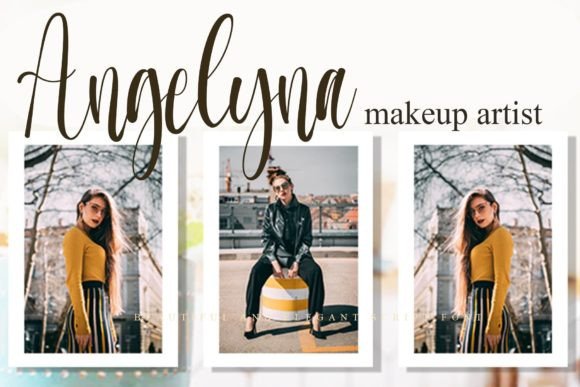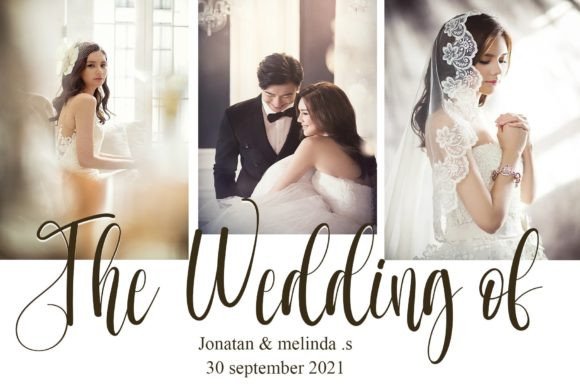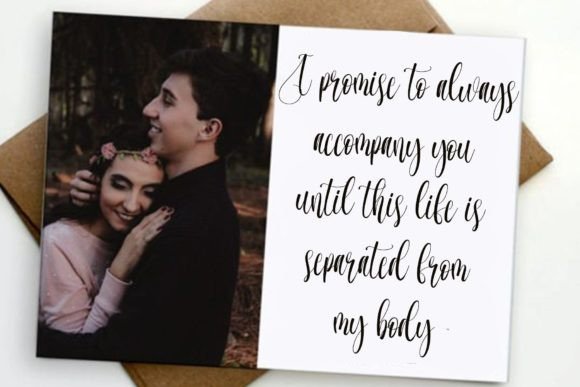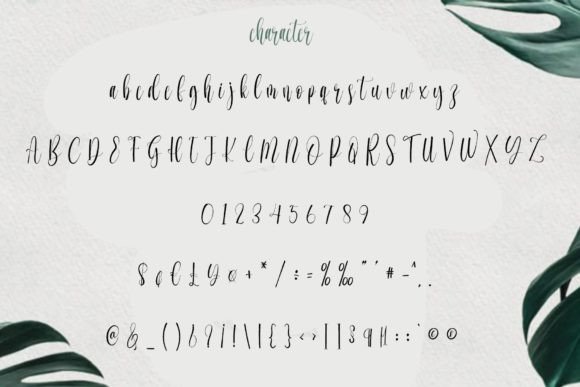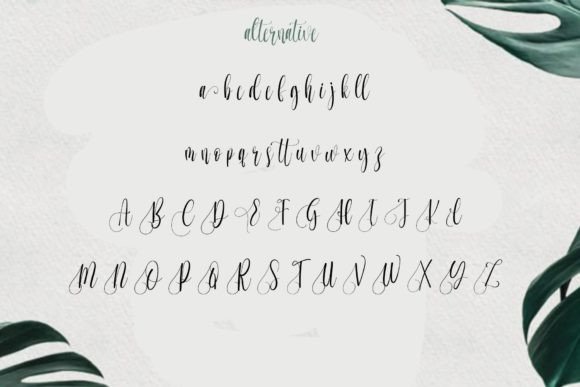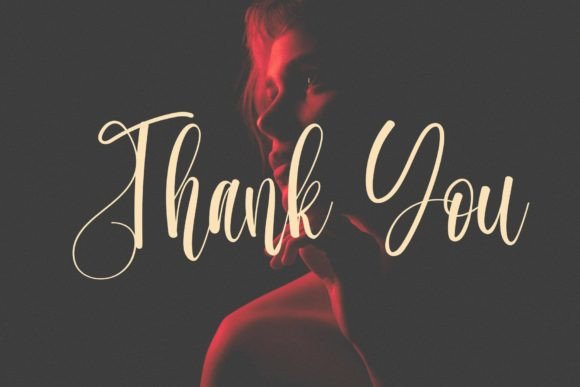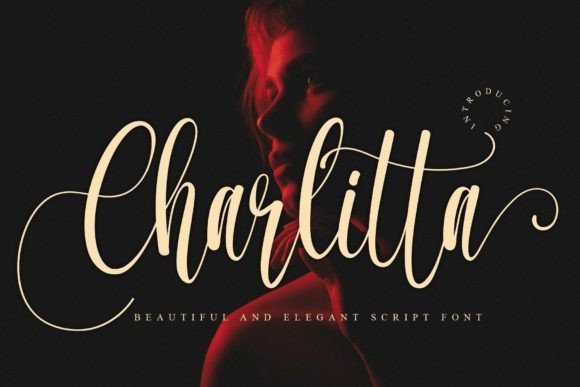
Introducing Charlitta Font: Elevate Your Design with Elegant Handwritten Style
In the world of design, fonts play a crucial role in conveying messages, expressing emotions, and creating a lasting impression. If you’re a designer, craftsperson, or simply someone who appreciates beautiful typography, you’re in luck! Meet Charlitta Font, a superb handwritten font that will make your work stand out through its elegant and curvy lines.
What Makes Charlitta Font Special?
Charlitta Font is perfect for a wide range of design projects, including product packaging, branding projects, magazine covers, social media graphics, wedding invitations, and more. Its elegant and curvy lines add a touch of sophistication and whimsy, making it ideal for designers who want to create unique and eye-catching designs.
One of the standout features of Charlitta Font is its PUA (Private Use Area) encoding. This means that you can access all of the amazing glyphs and ligatures with ease, giving you greater flexibility and creative control over your designs. With Charlitta Font, you can effortlessly add flourishes, swashes, and other decorative elements to make your text stand out.
Endless Design Possibilities with Charlitta Font
Charlitta Font is incredibly versatile, making it suitable for a wide range of design applications. Here are just a few ideas to get you started:
- Product Packaging: Add a touch of elegance to your product packaging with Charlitta Font. Use it to create eye-catching labels, tags, or even custom packaging solutions.
- Branding Projects: Establish a strong brand identity with Charlitta Font. Use it to create logos, business cards, or letterheads that exude sophistication and style.
- Magazine Covers: Create stunning magazine covers with Charlitta Font. Its elegant lines and curvy shapes make it perfect for fashion, lifestyle, or beauty publications.
- Social Media Graphics: Elevate your social media presence with Charlitta Font. Use it to create engaging graphics, quotes, or promotional materials that grab attention.
- Wedding Invitations: Make your wedding invitations truly special with Charlitta Font. Its elegant and whimsical design is perfect for creating romantic and memorable invitations.
Why Choose Charlitta Font?
With so many fonts available, why choose Charlitta Font? Here are just a few reasons why designers and crafters love Charlitta Font:
- Elegant and Curvy Lines: Charlitta Font features beautiful, elegant lines that add a touch of sophistication to any design.
- PUA Encoding: With PUA encoding, you can access a wide range of glyphs and ligatures, giving you greater creative control.
- Versatility: Charlitta Font is suitable for a wide range of design applications, from product packaging to social media graphics.